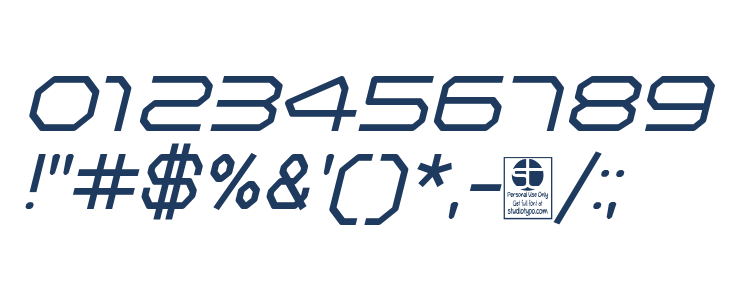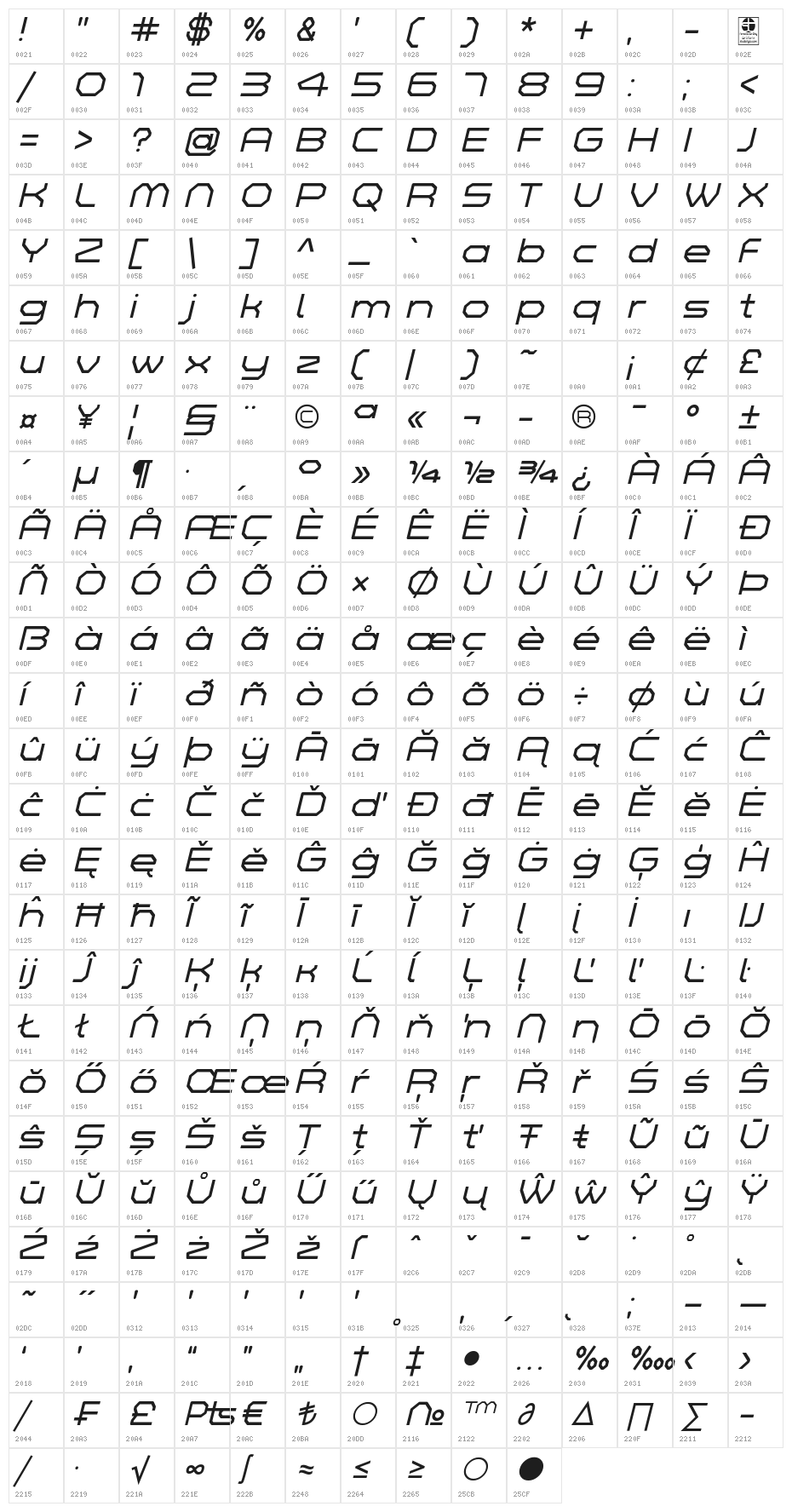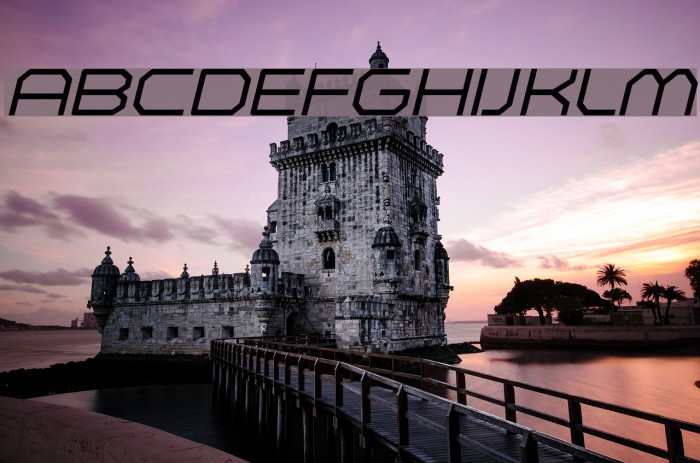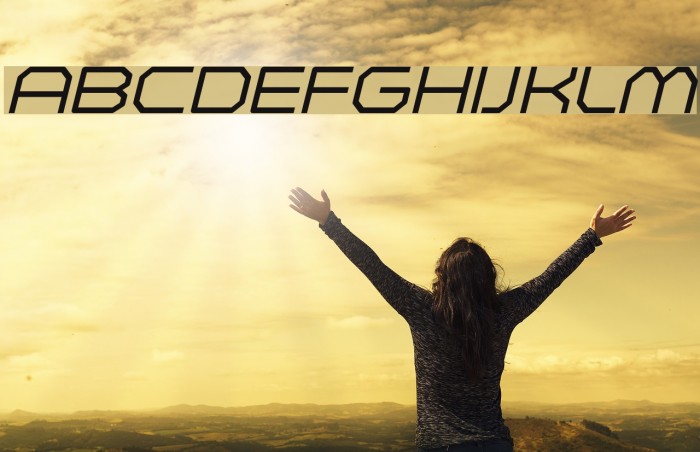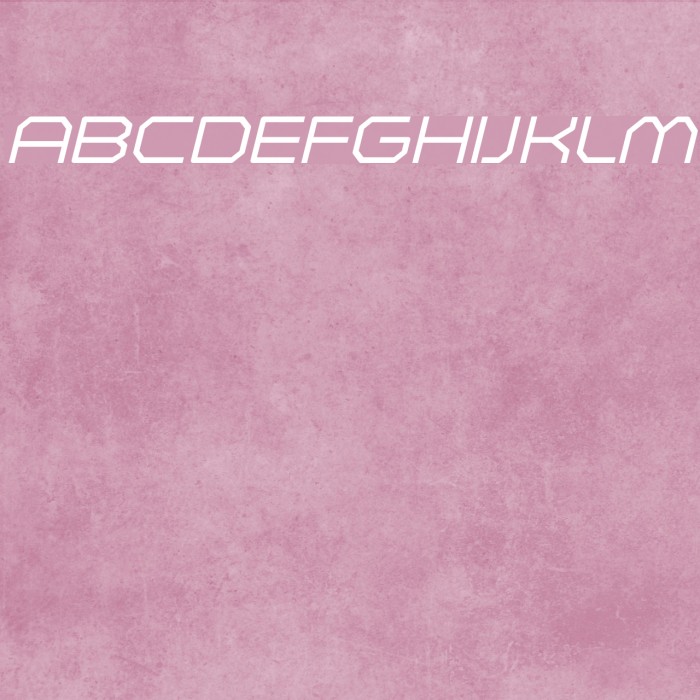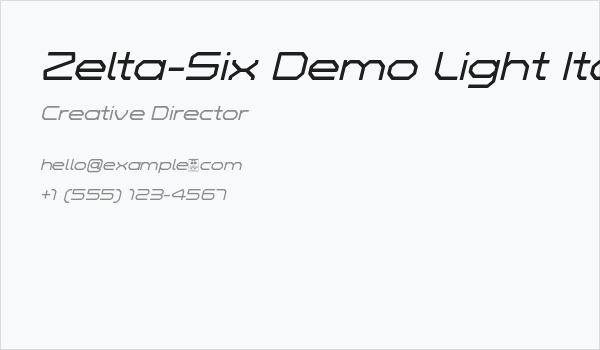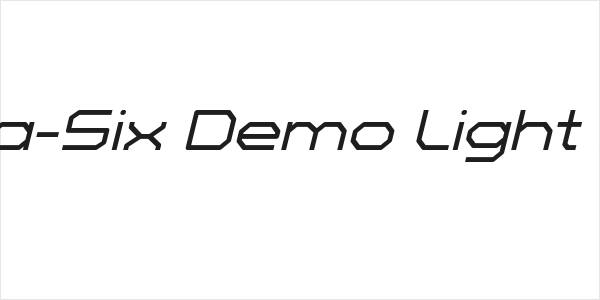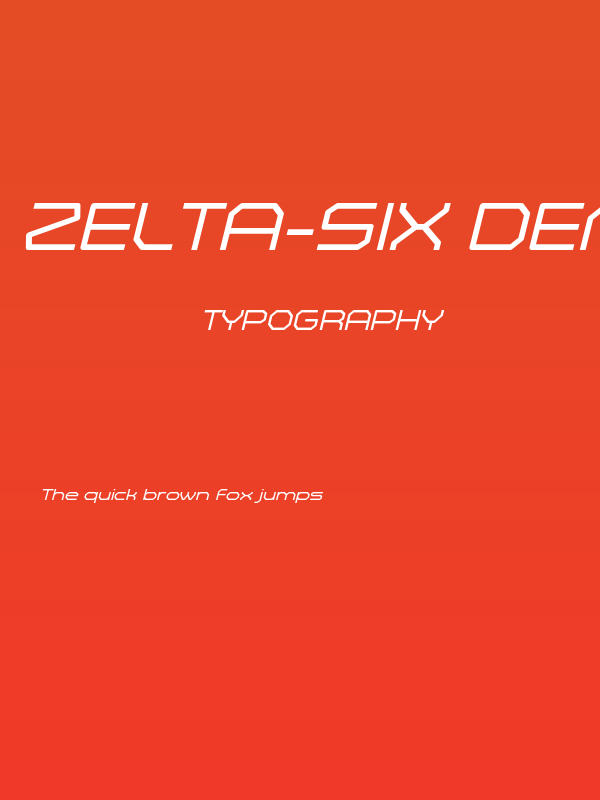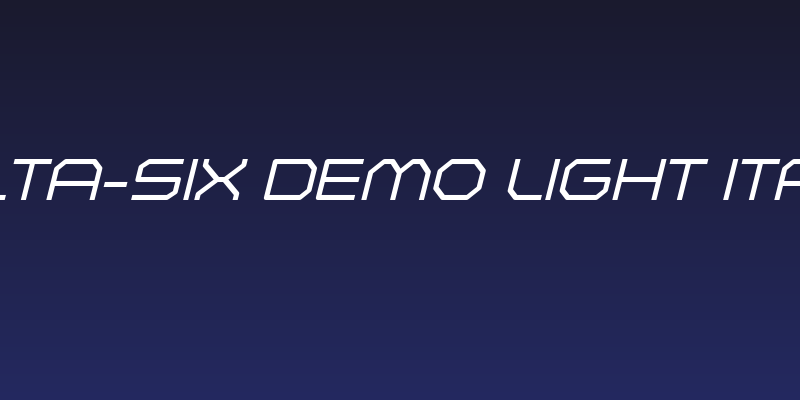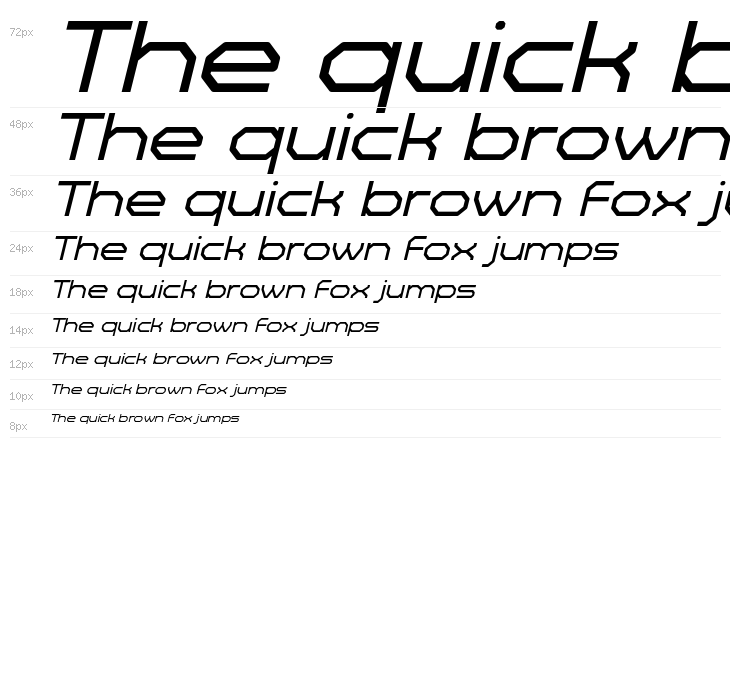
Zelta-Six Demo Light Italic Font
Zelta-Six Demo Light Italic Description
This font features a futuristic and geometric design with a light and italicized style. The characters are constructed with angular lines and sharp edges, giving it a modern and tech-inspired appearance. The uppercase and lowercase letters maintain a consistent style, with a slight slant that adds a dynamic feel. The numerals and special characters follow the same design principles, ensuring uniformity across all glyphs. Its unique structure makes it stand out, suitable for projects that require a contemporary and innovative look.
| Proposed Projects | Ideal for technology branding, sci-fi movie posters, video game titles, and modern web design. |